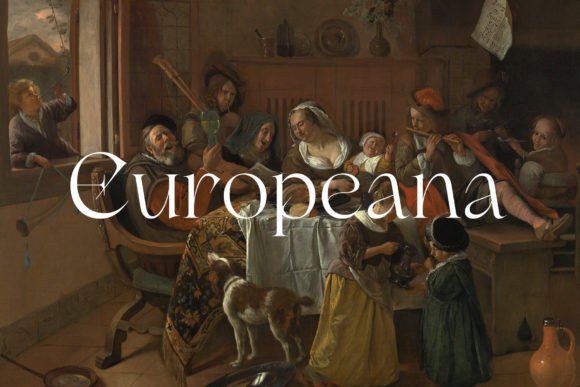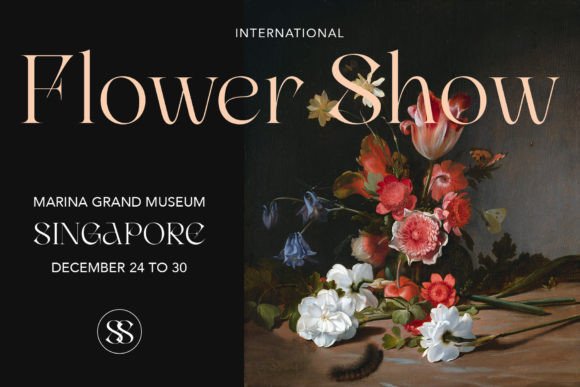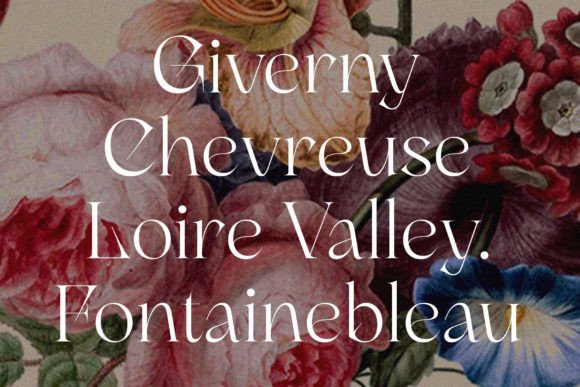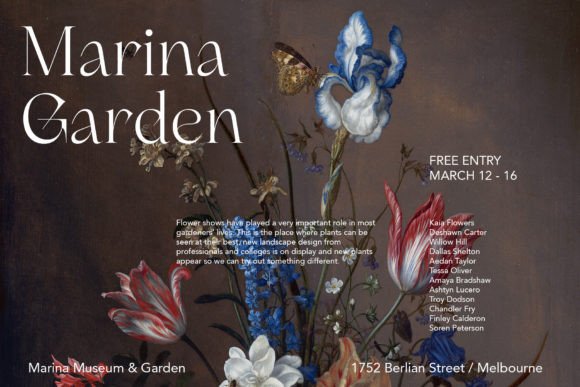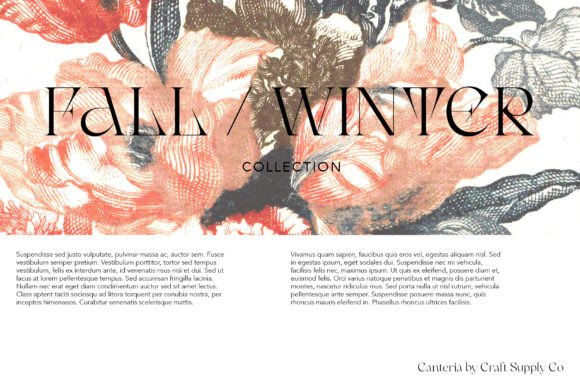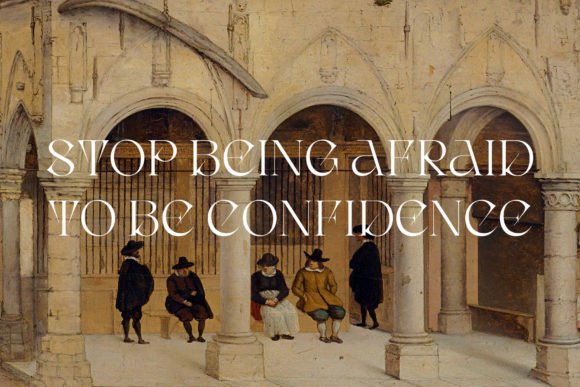
Introducing Canteria Font: Elevate Your Designs with Elegance and Flair
In the world of typography, a font can make or break a design. A well-chosen font can elevate a project from ordinary to extraordinary, while a poorly chosen one can detract from the overall aesthetic. For designers and crafters looking to add a touch of elegance and sophistication to their work, Canteria Font is an excellent choice. This charismatic serif typeface boasts a classical form structure with a flashy look, making it perfect for display purposes.
The Characteristics of Canteria Font
Canteria Font is a serif typeface that exudes elegance and refinement. Its classical form structure provides a sense of timelessness, while its flashy look adds a touch of modernity. The font’s charismatic personality shines through in its unique letterforms, which are designed to grab attention and make a statement. Whether you’re working on a luxury brand project, a high-end product packaging design, or a sophisticated editorial layout, Canteria Font is sure to impress.
One of the standout features of Canteria Font is its versatility. Regardless of the topic or theme, this font can adapt and shine. Whether you’re designing a brochure for a financial institution, a website for a fashion brand, or a social media graphic for a lifestyle influencer, Canteria Font will add a touch of sophistication and elegance to your work. Its ability to elevate any creation makes it an incredible asset to your font library.
Why Designers and Crafters Love Canteria Font
So, what makes Canteria Font a favorite among designers and crafters? Here are just a few reasons:
- Elegant and refined: Canteria Font’s classical form structure and serif details evoke a sense of luxury and sophistication.
- Flashy and attention-grabbing: The font’s unique letterforms and modern twist make it perfect for display purposes and grabbing attention.
- Versatile: Canteria Font can be used for a wide range of projects, from editorial layouts to branding and packaging design.
- Easy to read: Despite its flashy look, Canteria Font remains easy to read, making it perfect for body text and captions.
Tips for Using Canteria Font
To get the most out of Canteria Font, here are a few tips to keep in mind:
- Use it for headlines and titles: Canteria Font’s flashy look makes it perfect for grabbing attention and adding emphasis to headlines and titles.
- Pair it with a neutral font: For body text and captions, pair Canteria Font with a neutral font to create visual contrast and hierarchy.
- Experiment with font sizes and colors: Don’t be afraid to experiment with different font sizes and colors to create visual interest and add emphasis.
In conclusion, Canteria Font is a charismatic serif typeface that offers elegance, sophistication, and versatility. Its classical form structure and flashy look make it perfect for display purposes, while its easy readability ensures it can be used for body text and captions. Whether you’re a designer or crafter looking to elevate your work, Canteria Font is an excellent addition to your font library. With its unique letterforms and attention-grabbing personality, this font is sure to make a statement and leave a lasting impression.